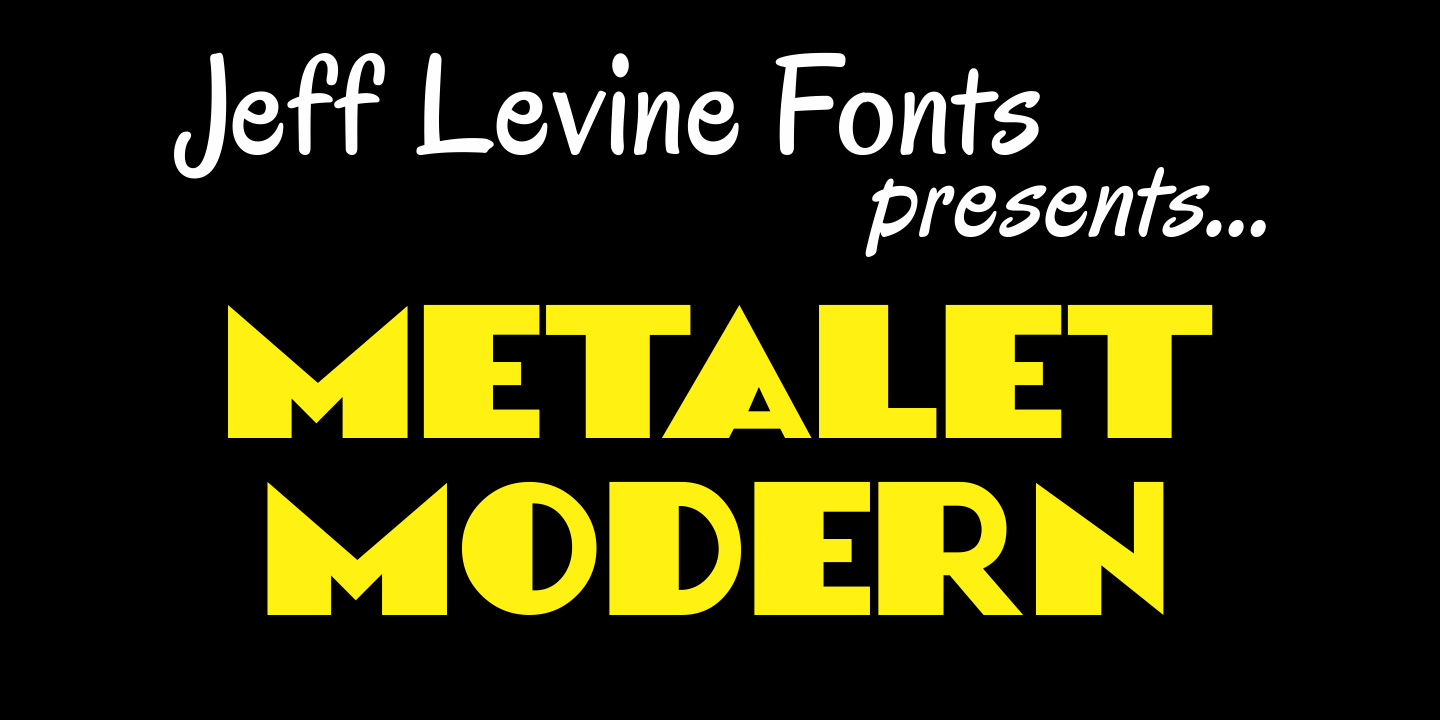
Metalet Modern
Metalet Modern JNL was based on the letters found within the Metalet Movie Titling Set manufactured by the Modern Display Advertising Company of Hollywood, California circa the 1940s.
Each stamped metal letter would be affixed to the background surface via the use of miniature magnets. Once in place, titles for home movies or slides could be photographed, the letters then returned to their storage area in their box.
The character shapes show unusual stroke movement, which means the original models used for these letters were most likely hand-drawn.